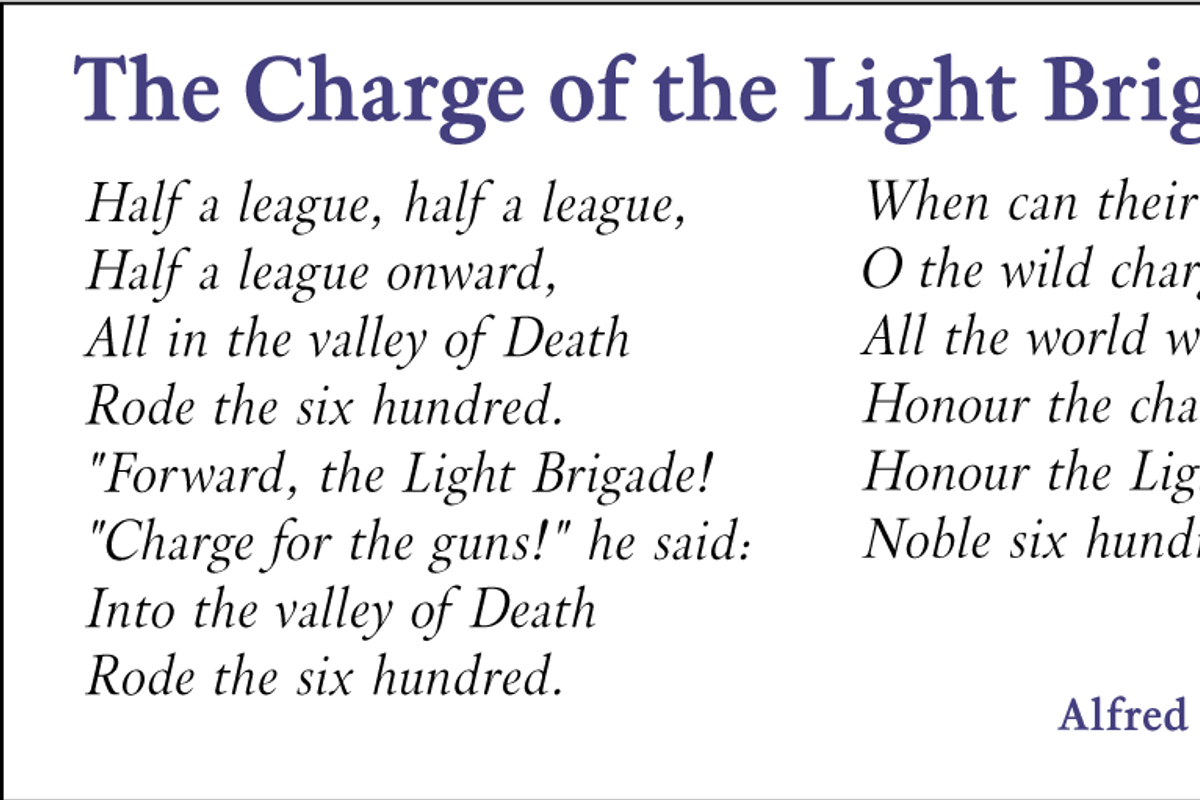
Brigade
Brigade is a serif typeface designed by Alan Meeks. It draws inspiration from classic Roman typefaces like Bembo, Times, and Garamond, aiming to combine the best qualities of each. Brigade is characterized by its soft, refined appearance, making it suitable for paragraph text and body copy.